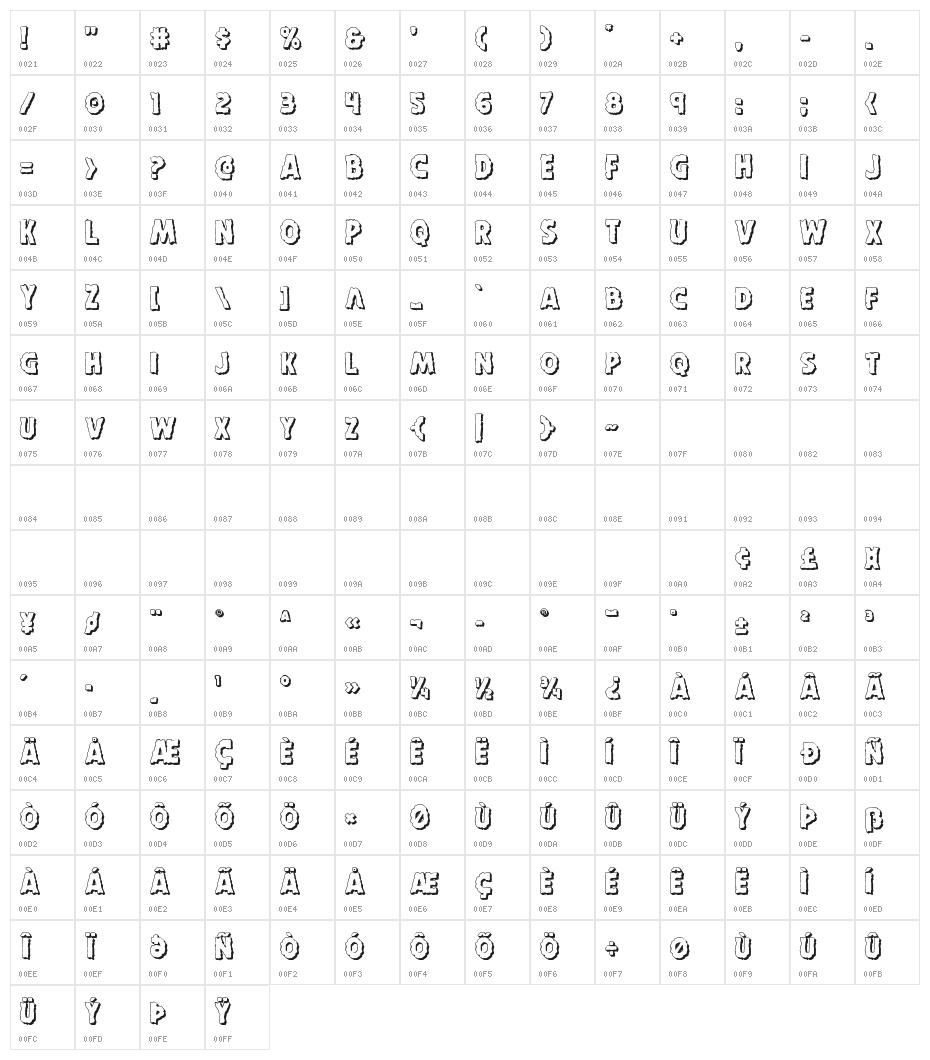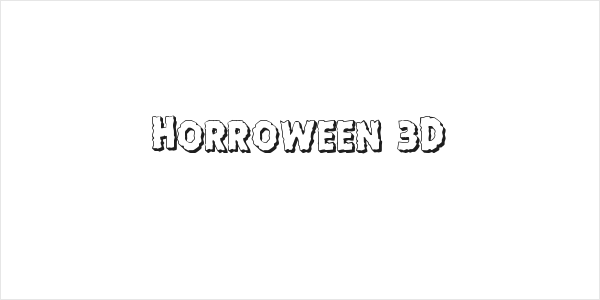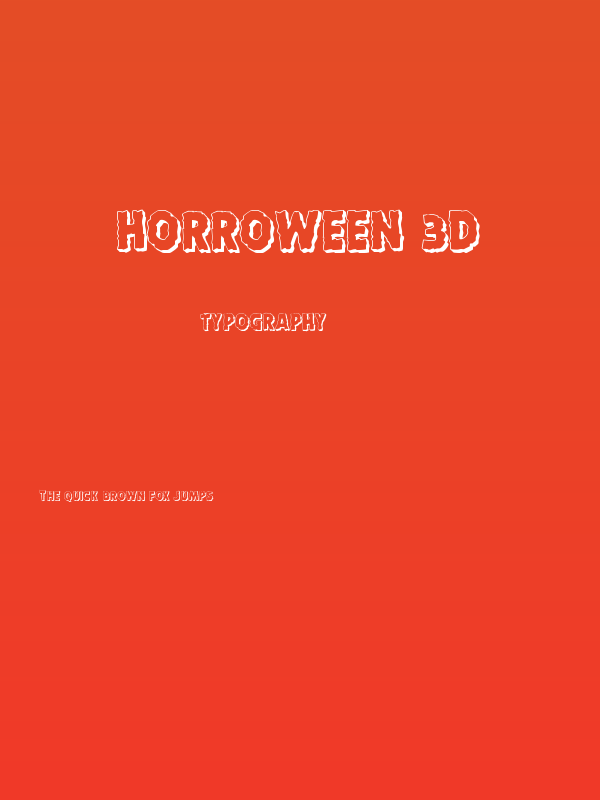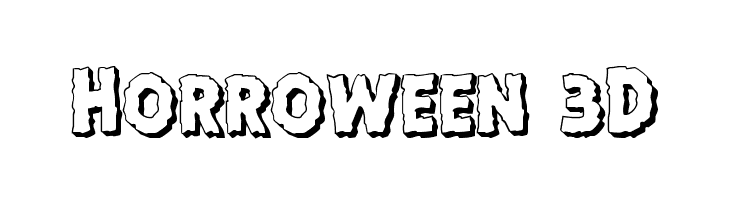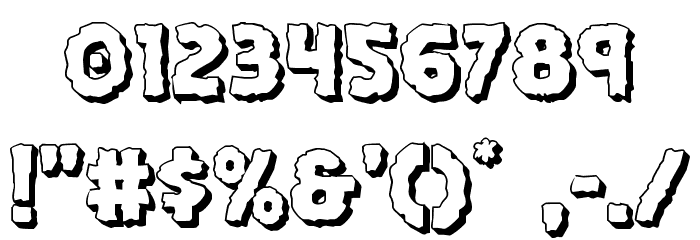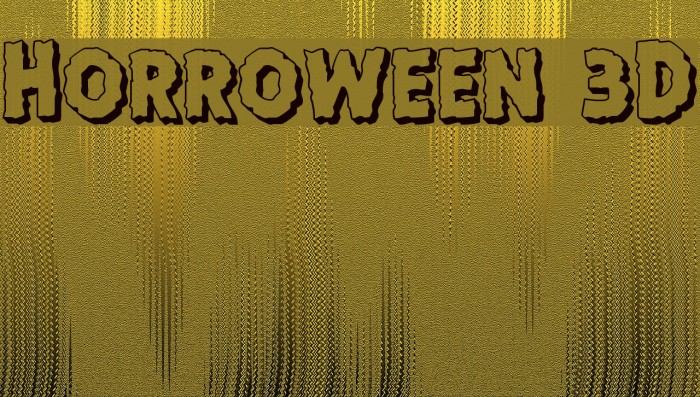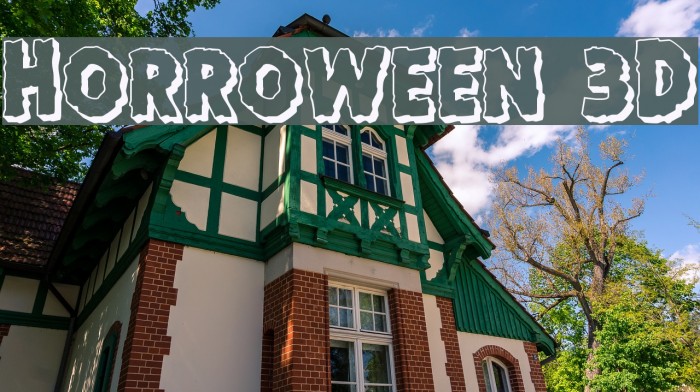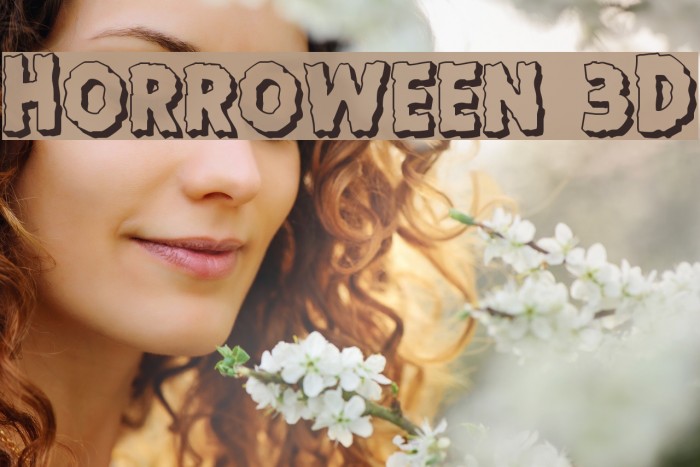
Horroween 3D Font
Horroween 3D Description
This font features a bold, playful design with a 3D effect that gives each character a shadowed appearance. The letters are thick and rounded, with a slightly irregular outline that adds a whimsical, cartoonish feel. The style is reminiscent of classic horror or Halloween themes, making it perfect for festive or themed projects. The characters are evenly spaced, ensuring readability while maintaining a fun and engaging look. The numbers and special characters follow the same design principles, ensuring consistency across all text elements.
| Proposed Projects | Ideal for Halloween-themed posters, party invitations, children's book covers, and playful branding. |